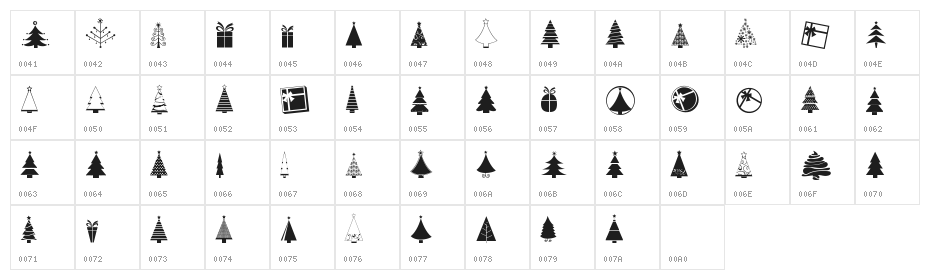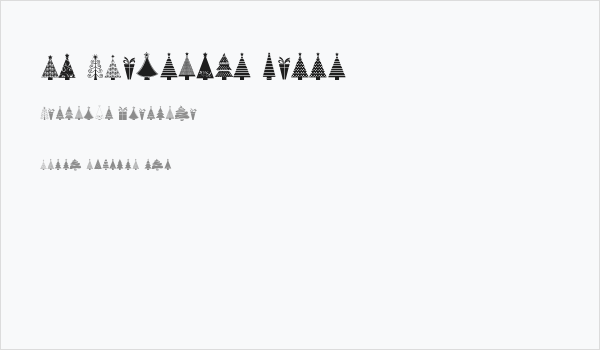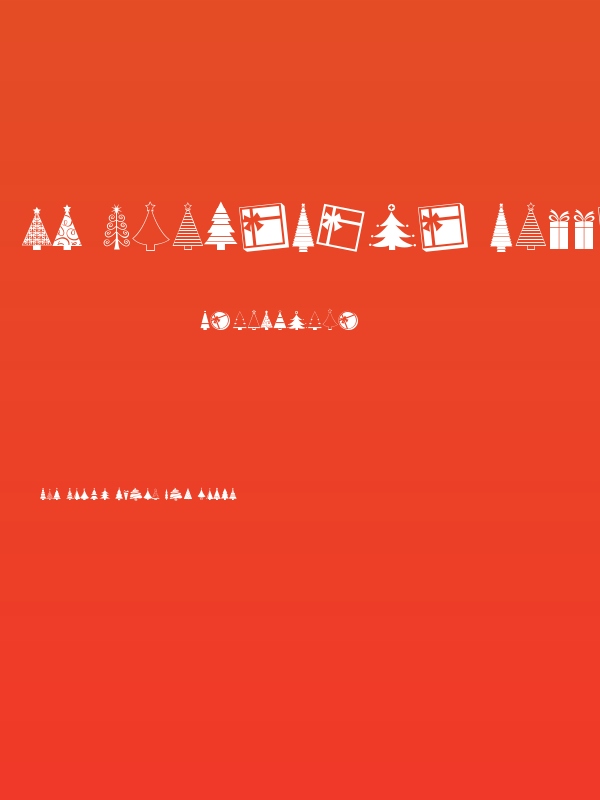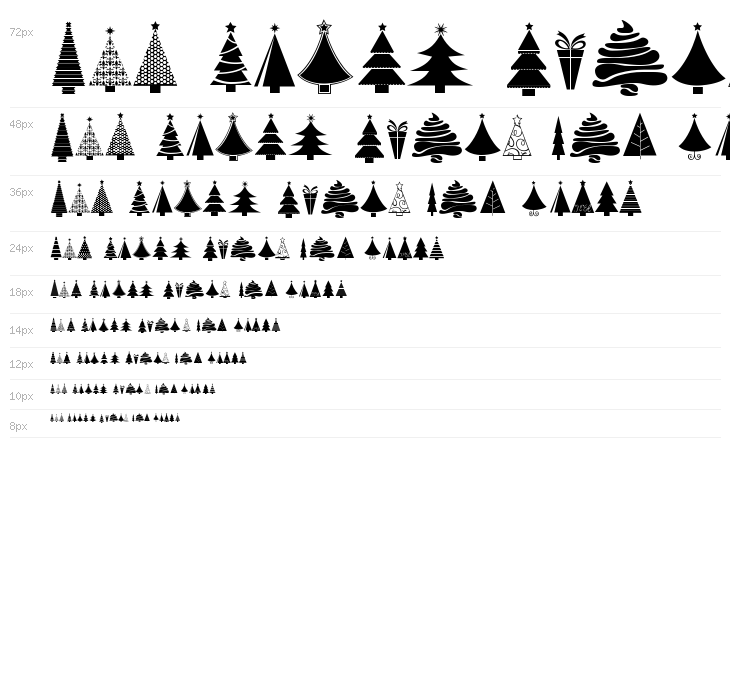
KG Christmas Trees Font
KG Christmas Trees Description
A decorative dingbat font featuring a variety of stylized Christmas trees, gift boxes, and festive icons in both solid and outlined forms, with playful and whimsical designs suitable for holiday themes.
| Overall Style | Decorative, Whimsical, Festive |
| Use Case | Holiday graphics, Decorative elements, Themed projects |
| Proposed Projects | Holiday cards, festive invitations, seasonal posters, gift tags, scrapbooking, and digital crafts. |